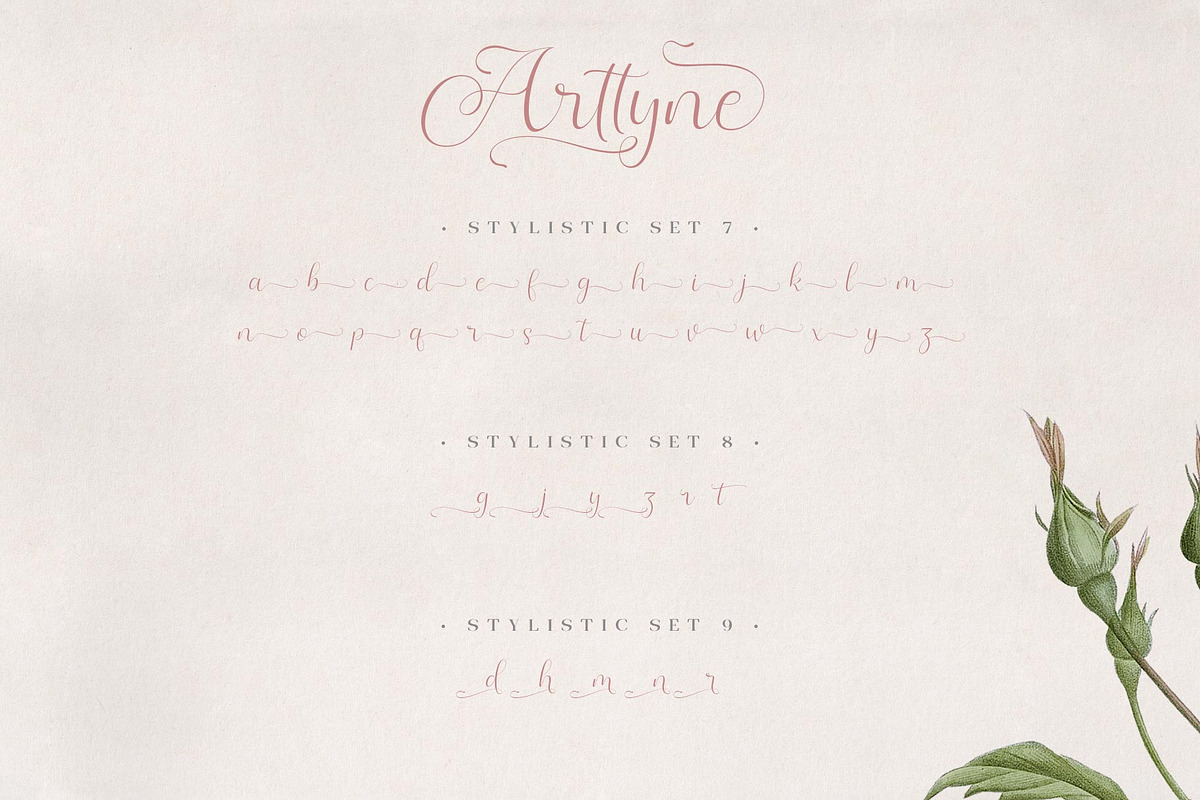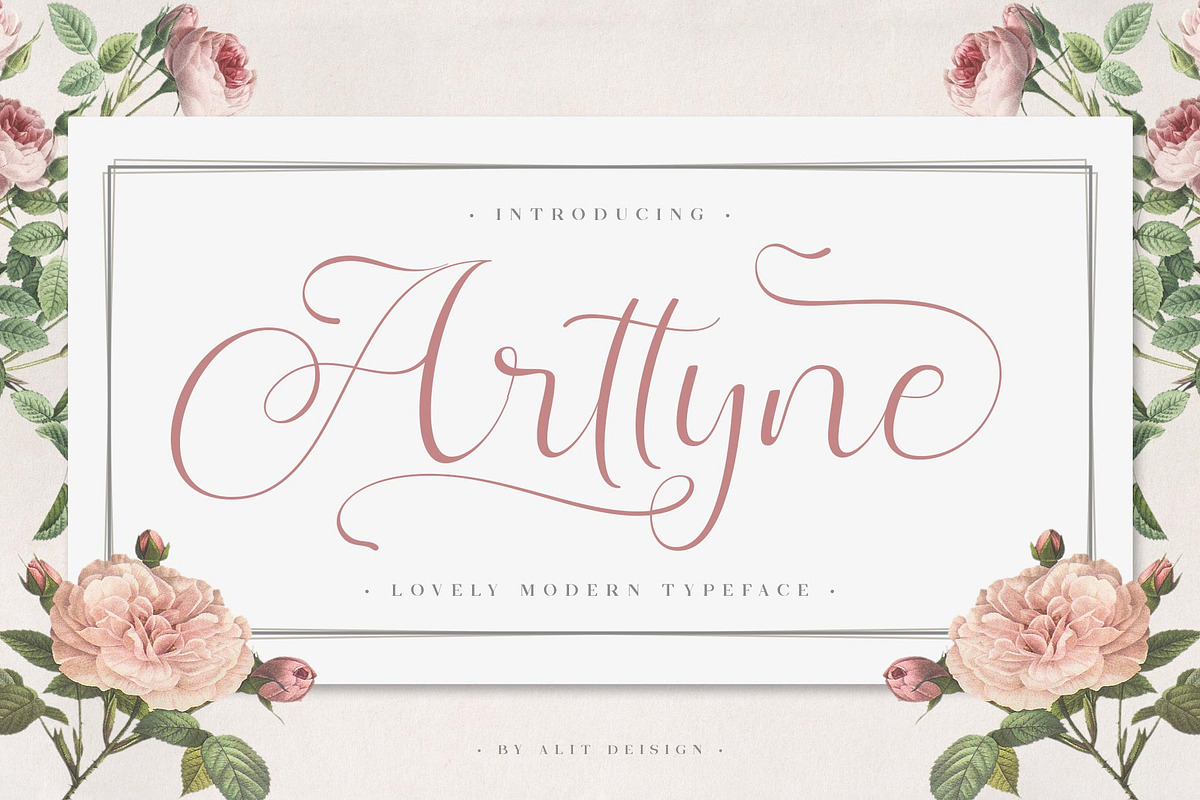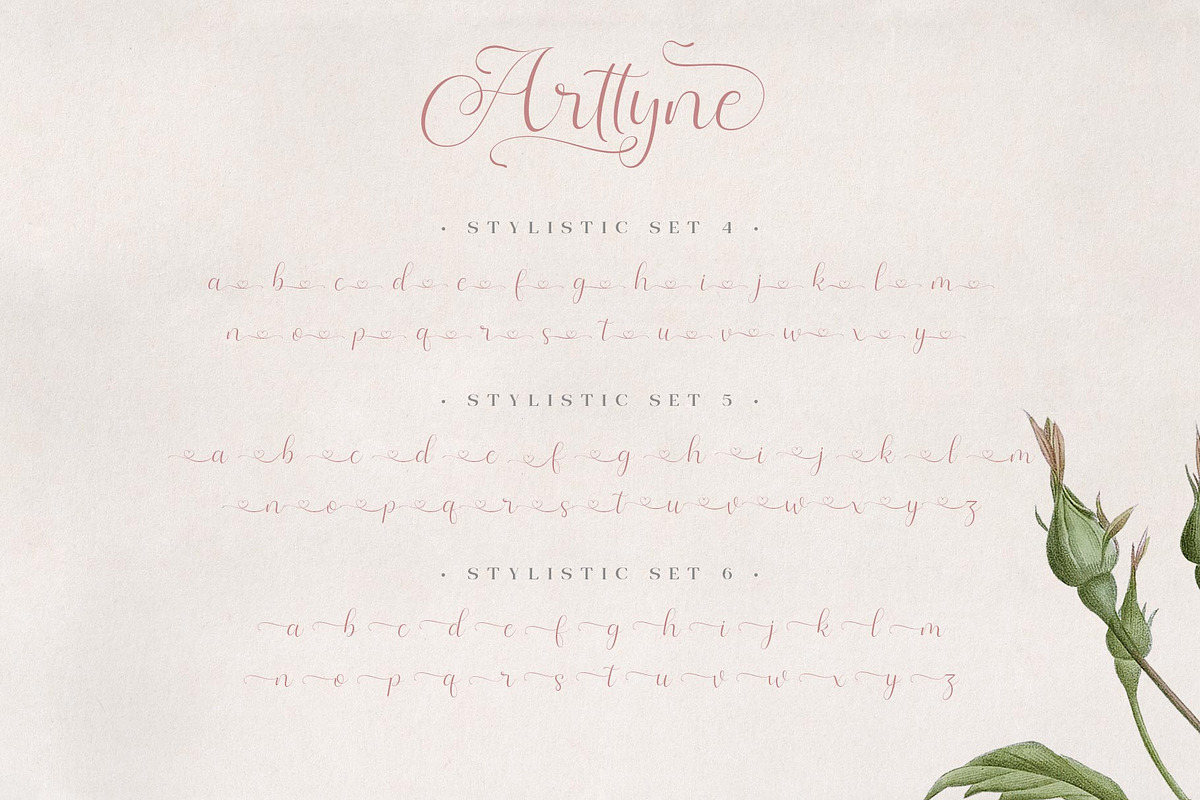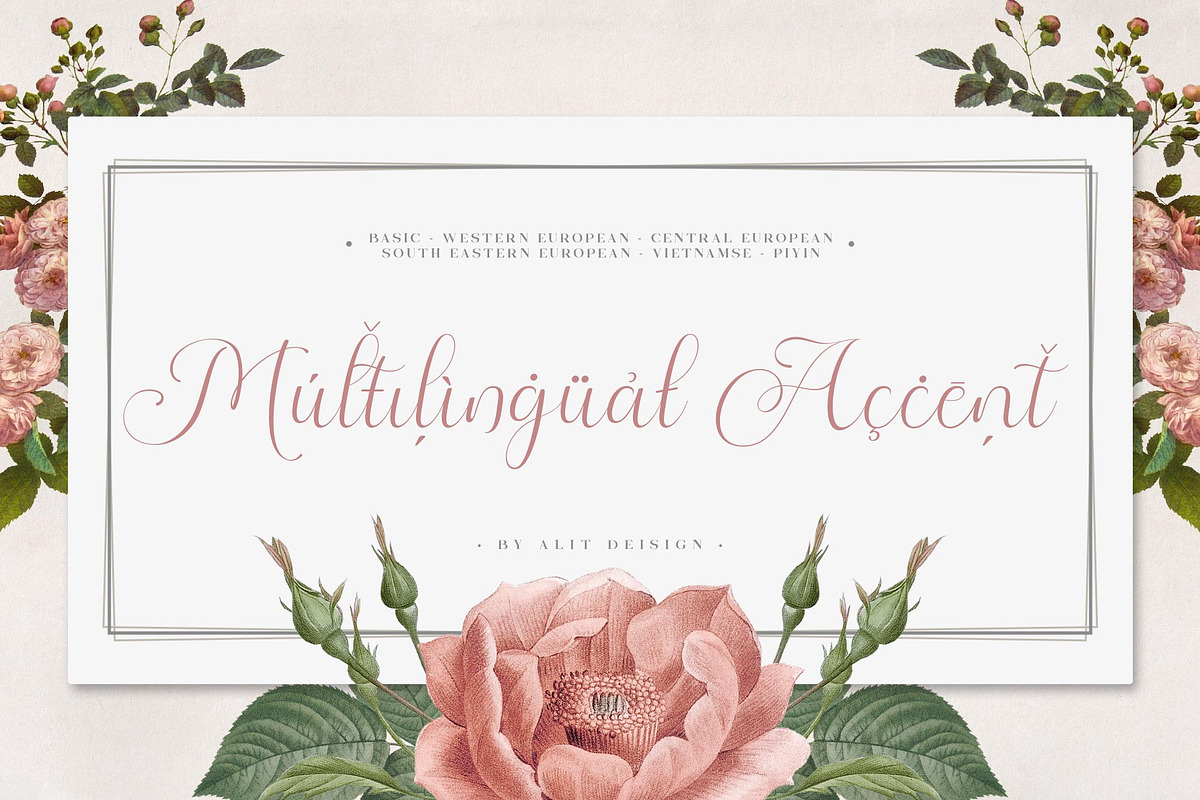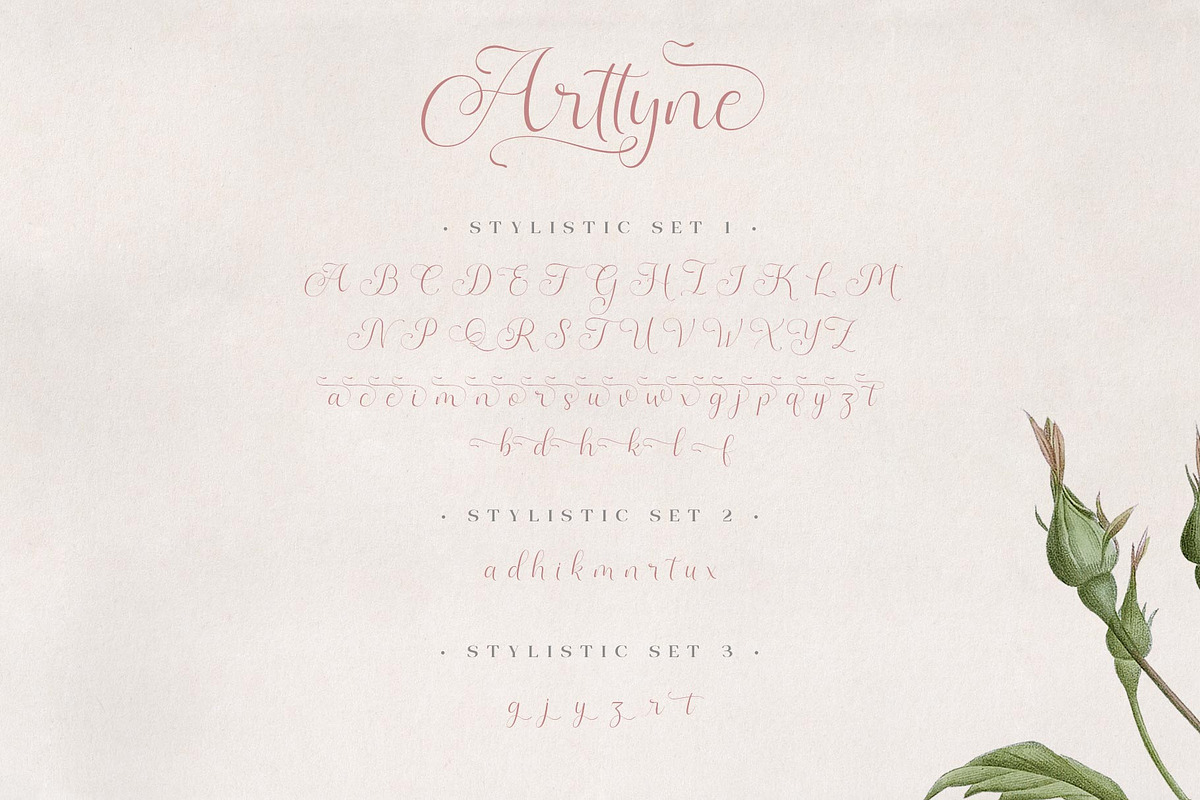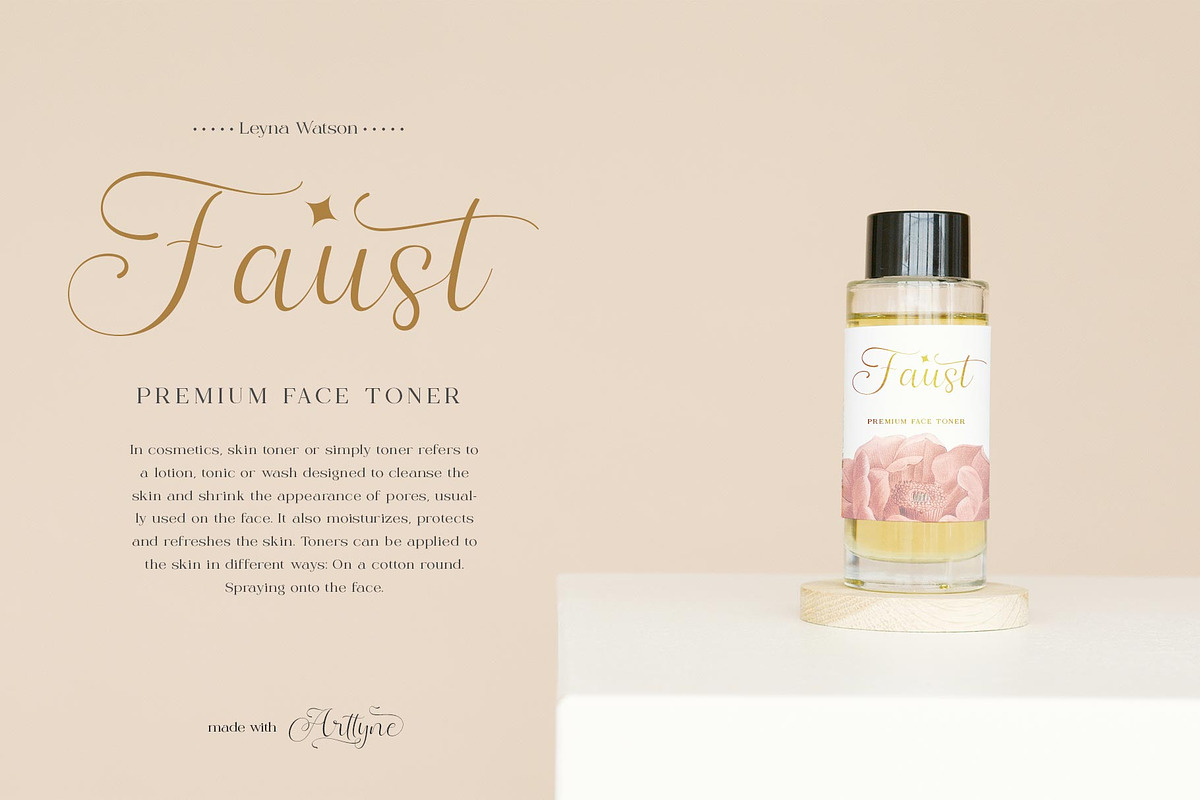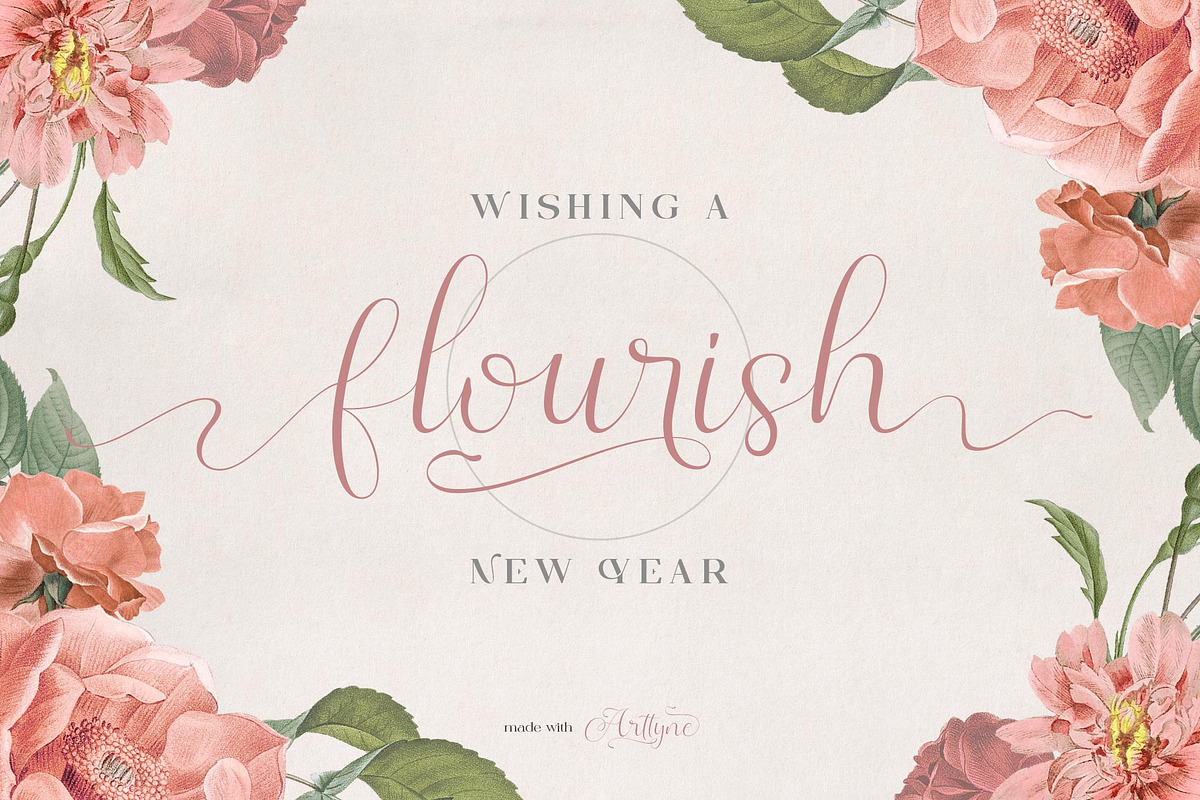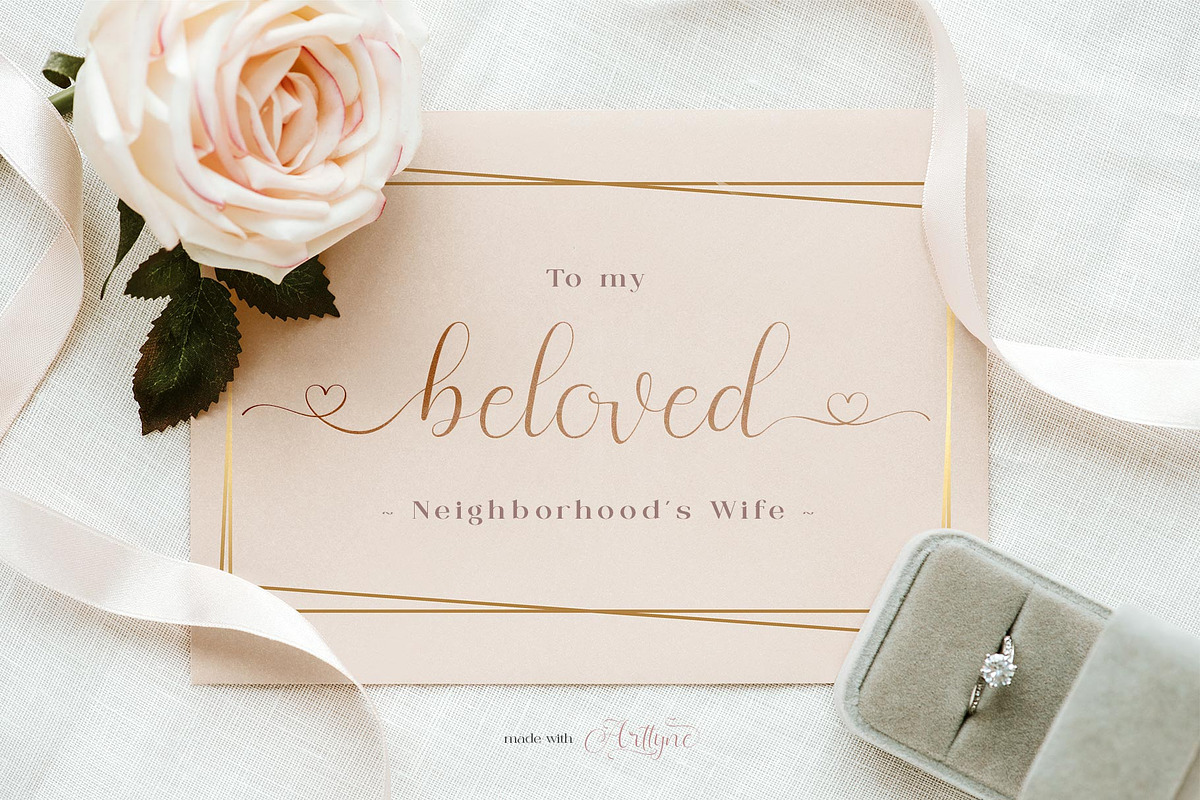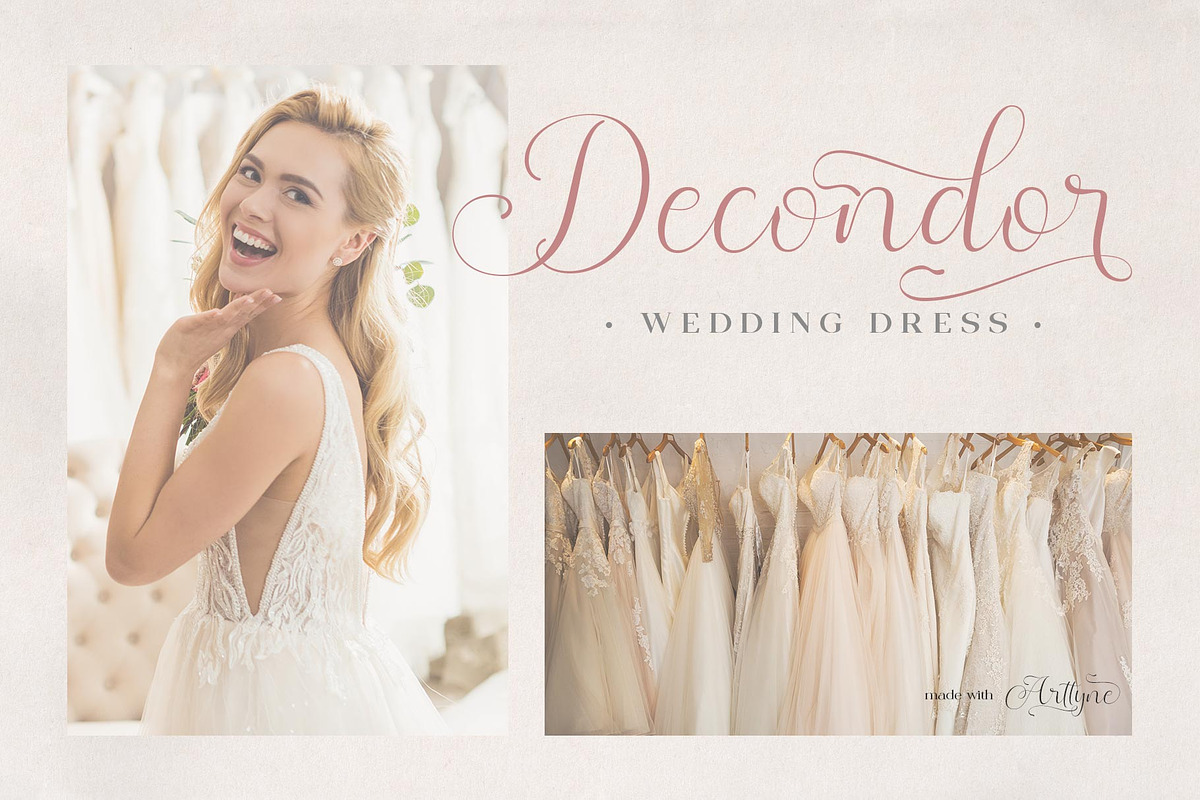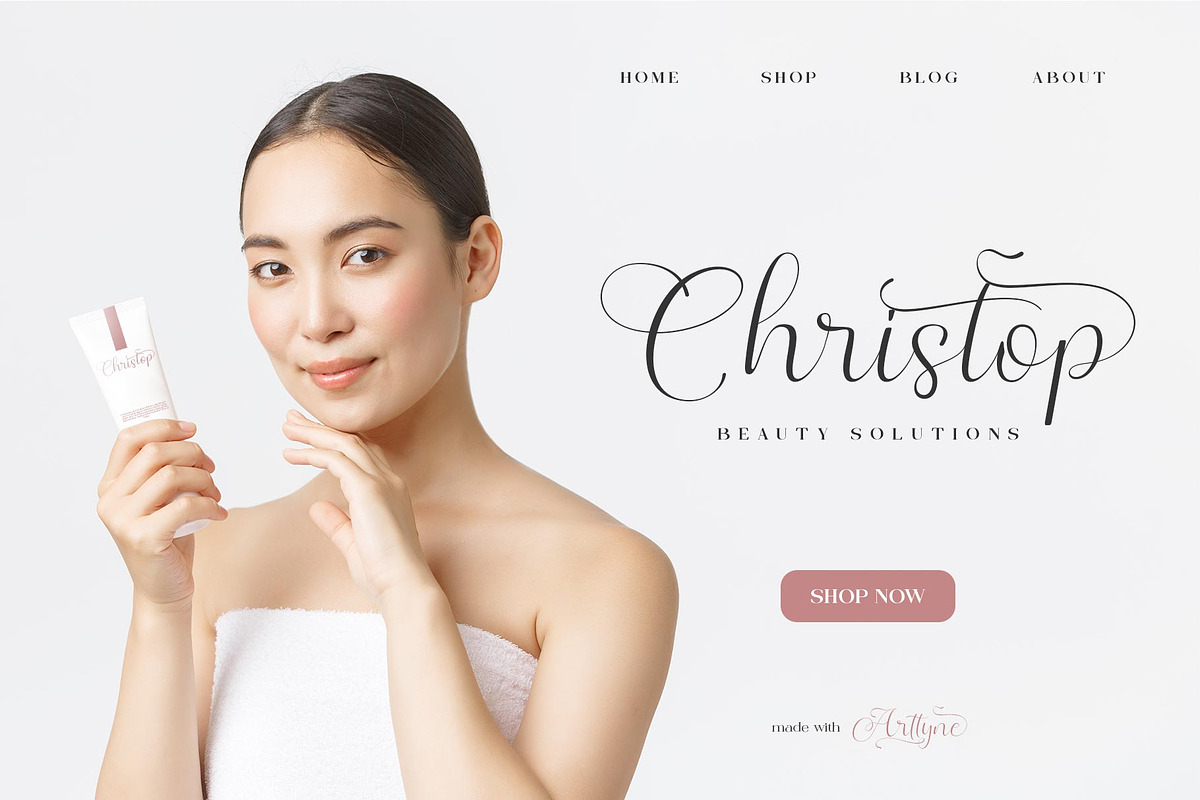
Arttyne Modern Script Font
Introducing Arttyne Modern Script Font
🖤The Arttyne Modern Script Font 🖤 is valentines day inspired font made for romance theme. The Arttyne Modern Script Font adheres to a simple and elegant modern script style, besides that this font has a unique swash in the shape for unique love designs.
Very suitable for use in making greeting card designs, Instagram posts, logo designs, wedding texts, romance quotes and so on, the first is about love.